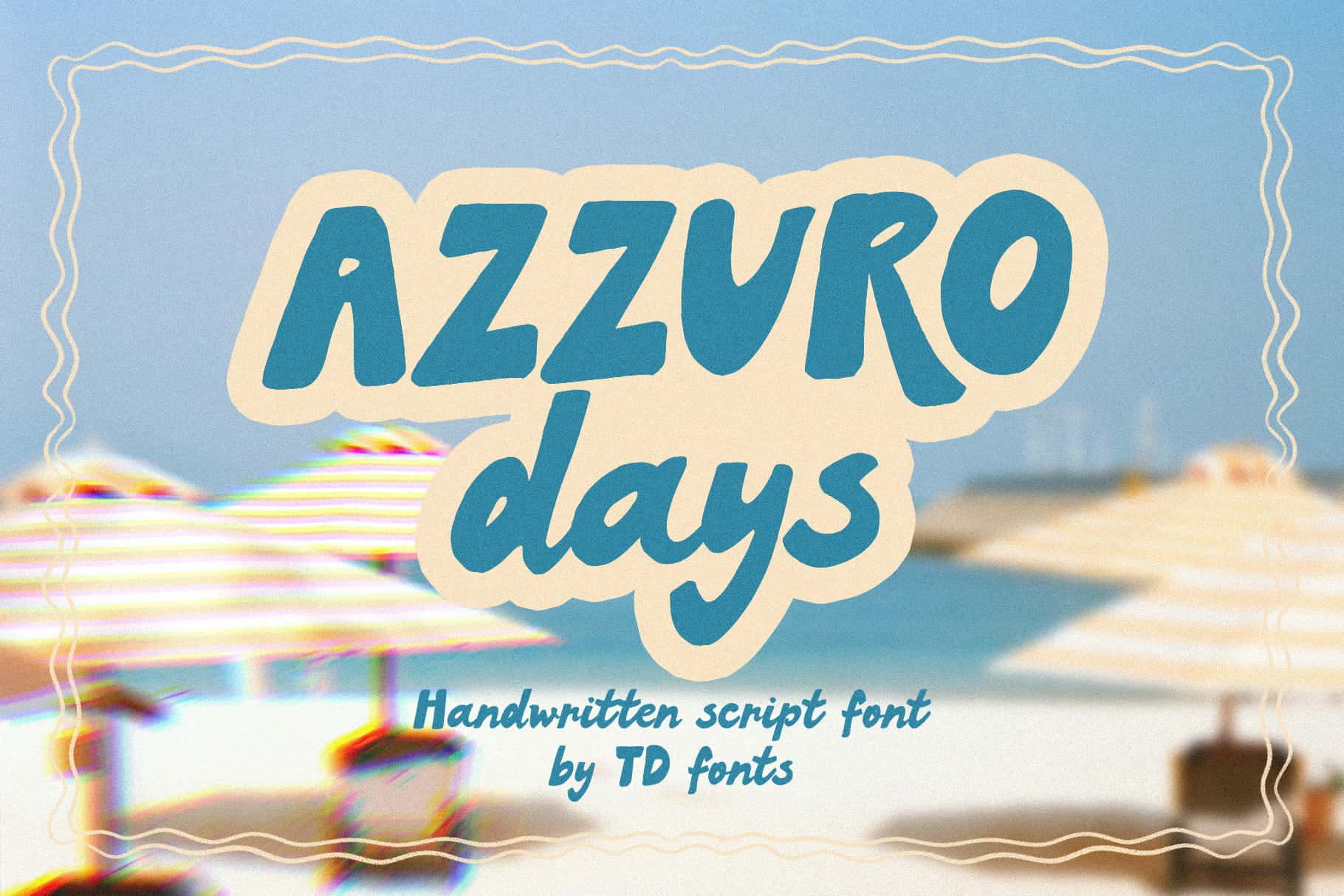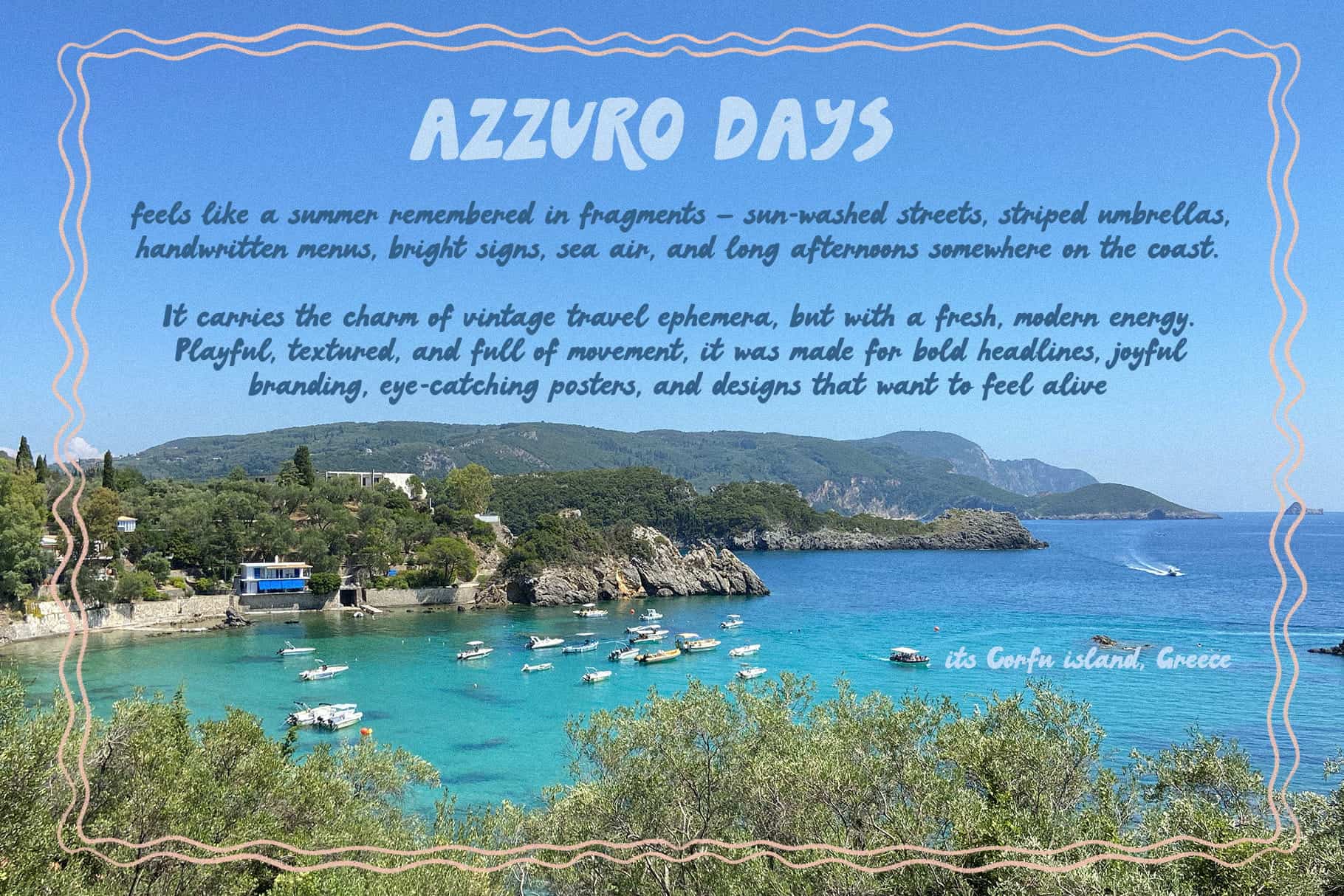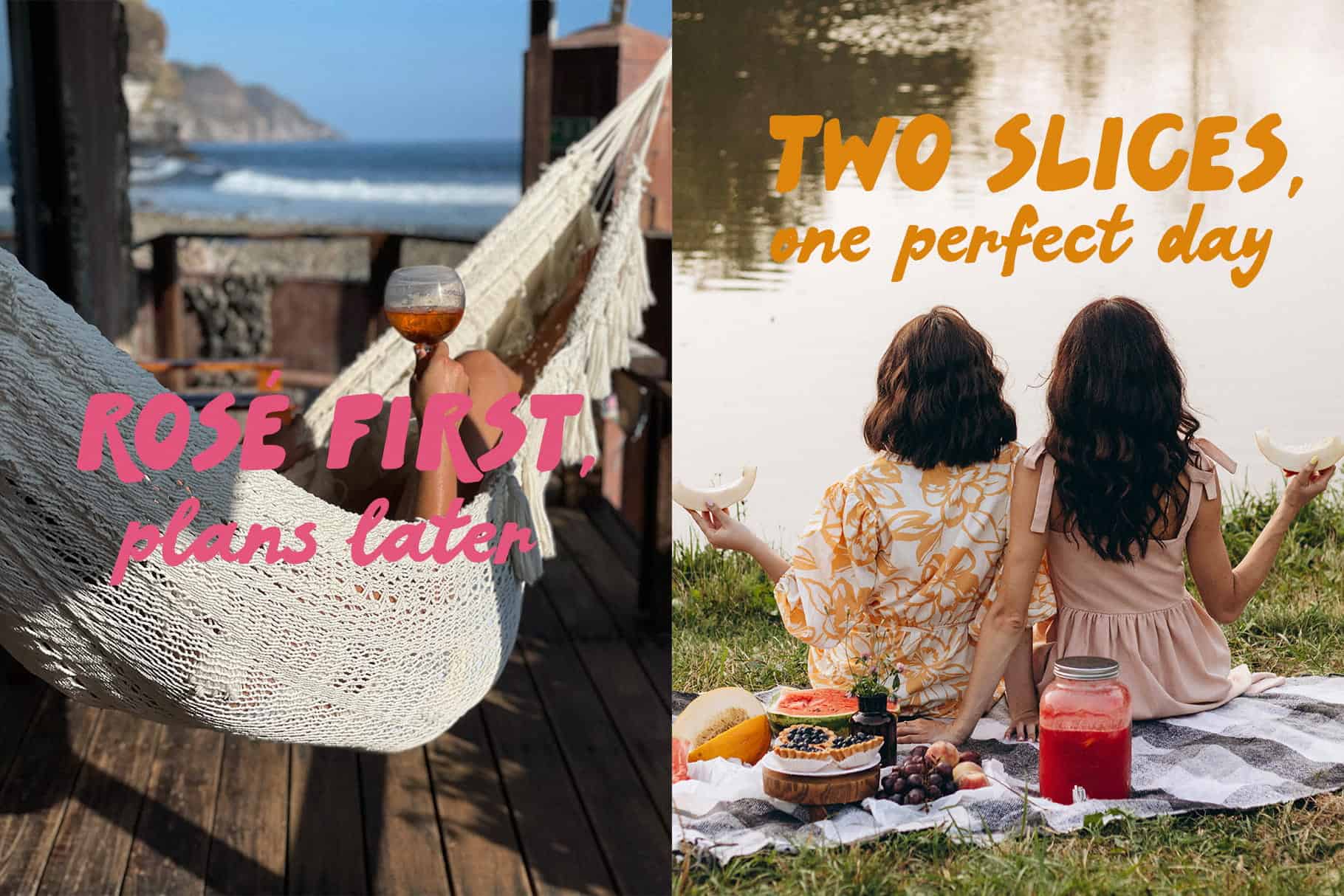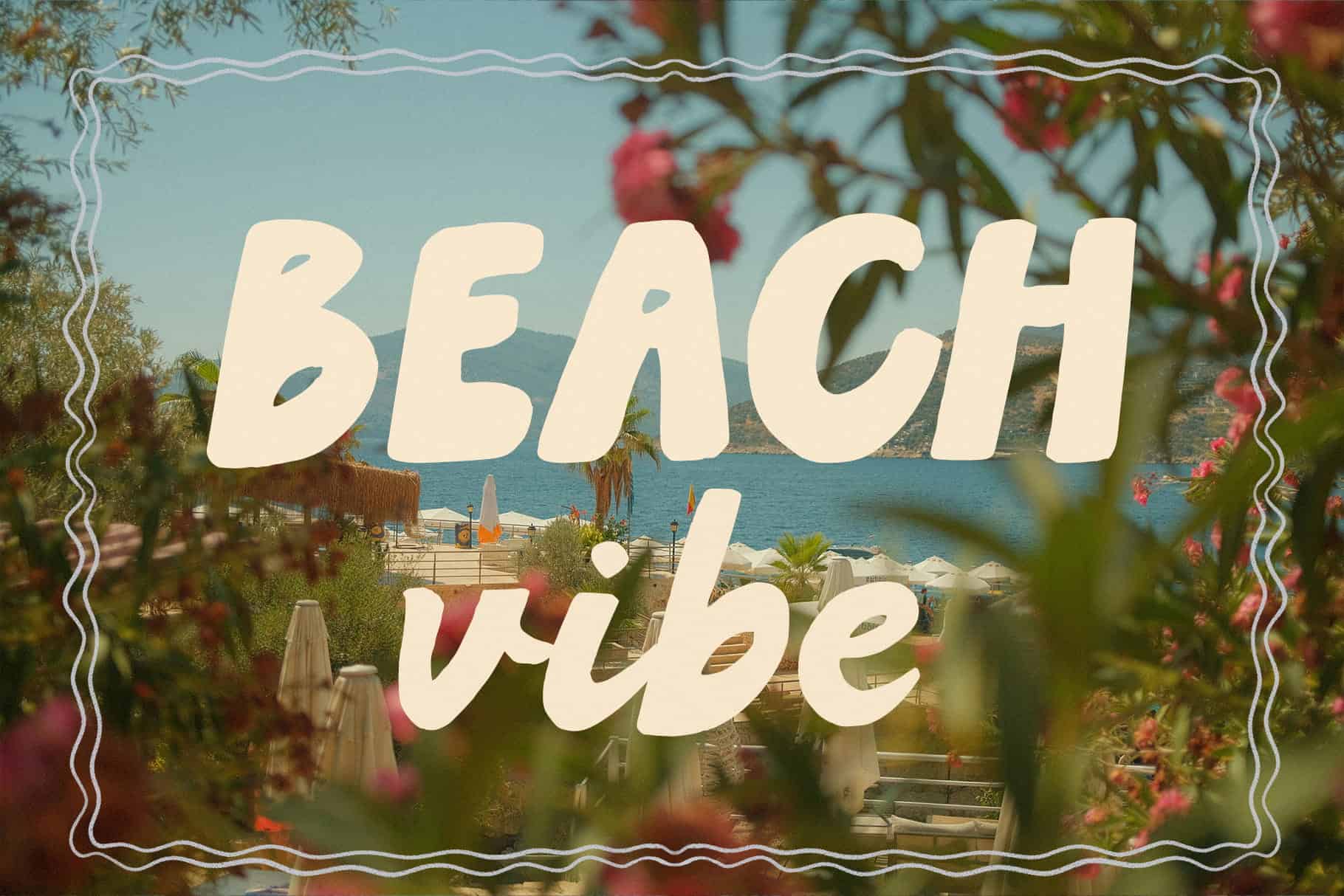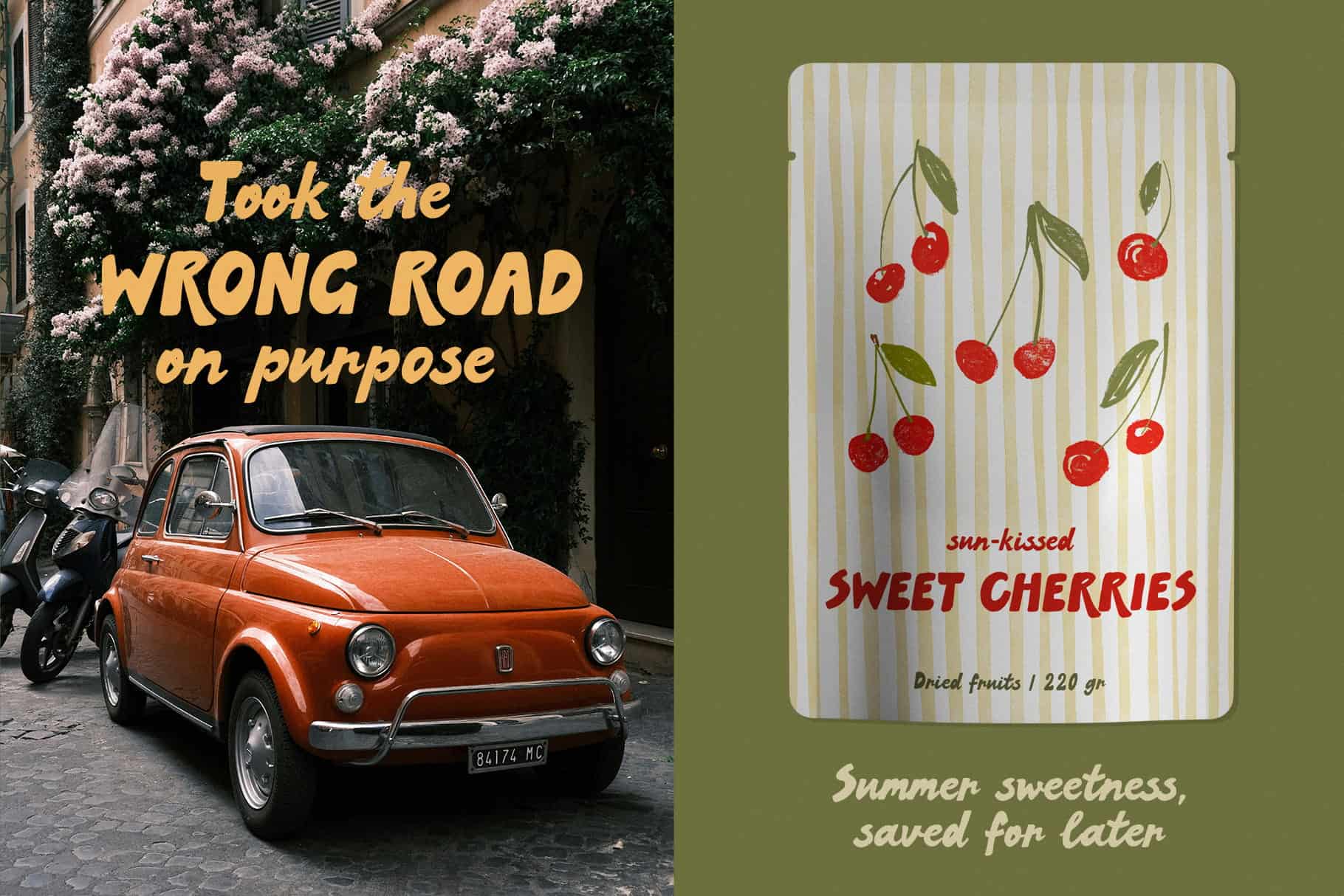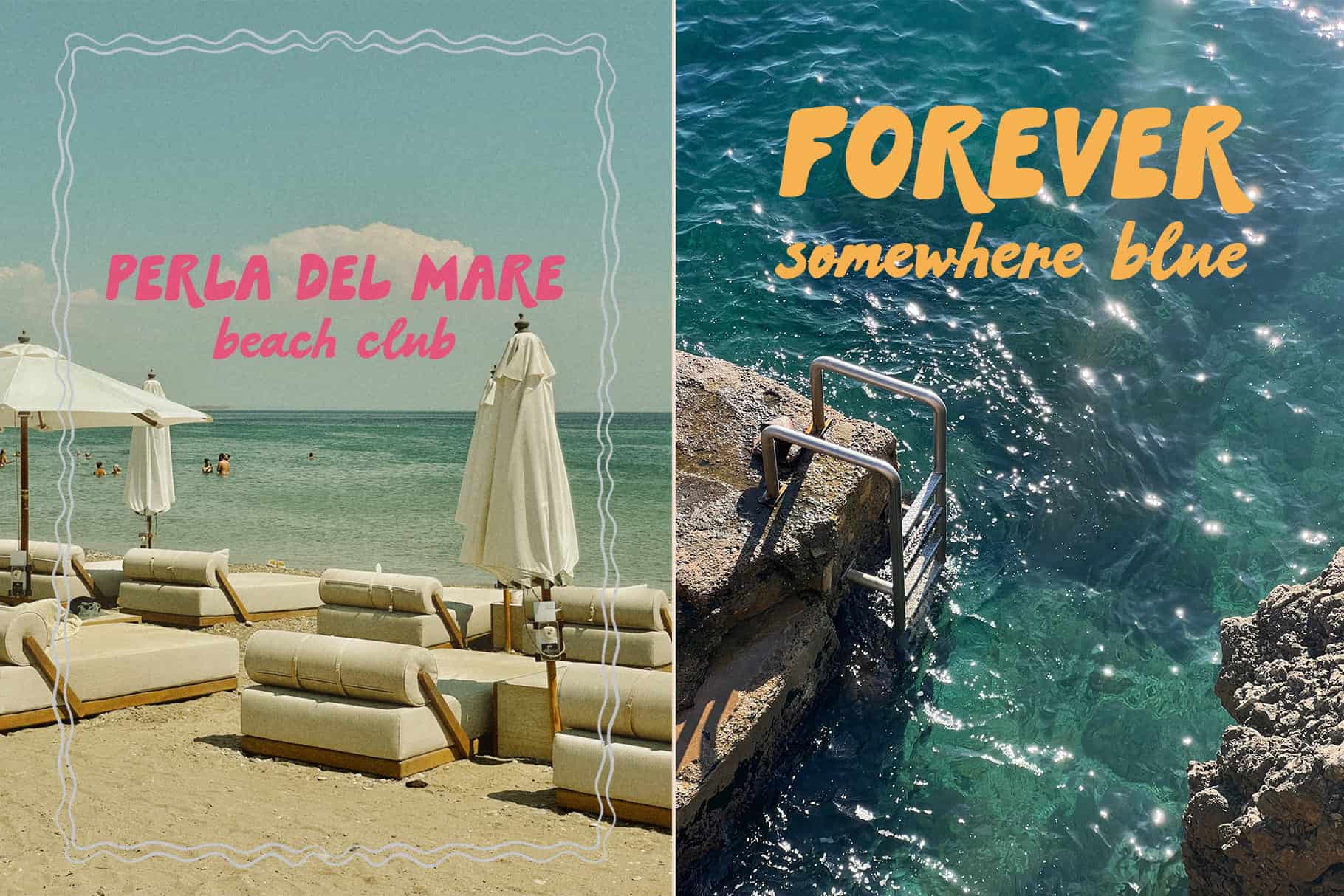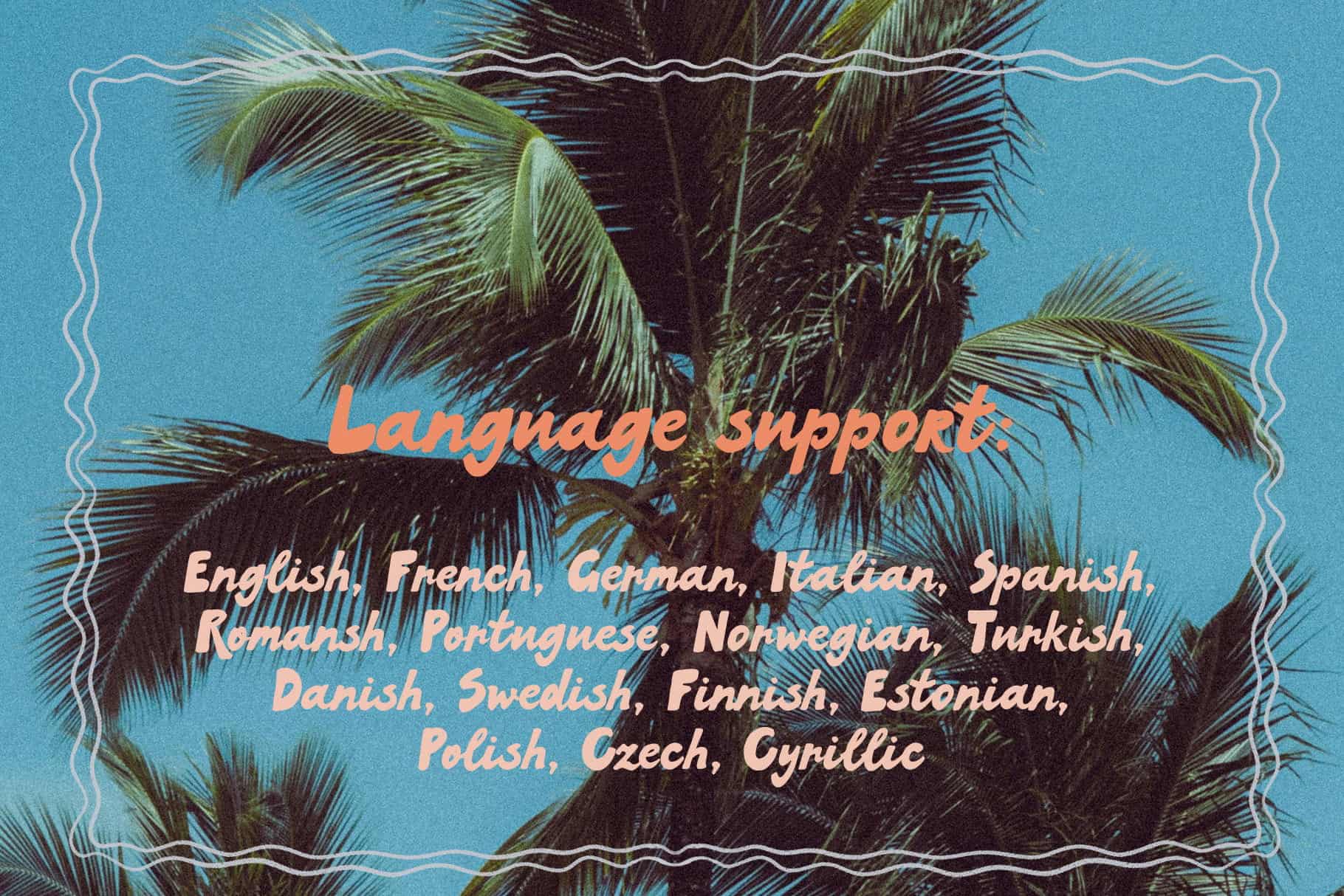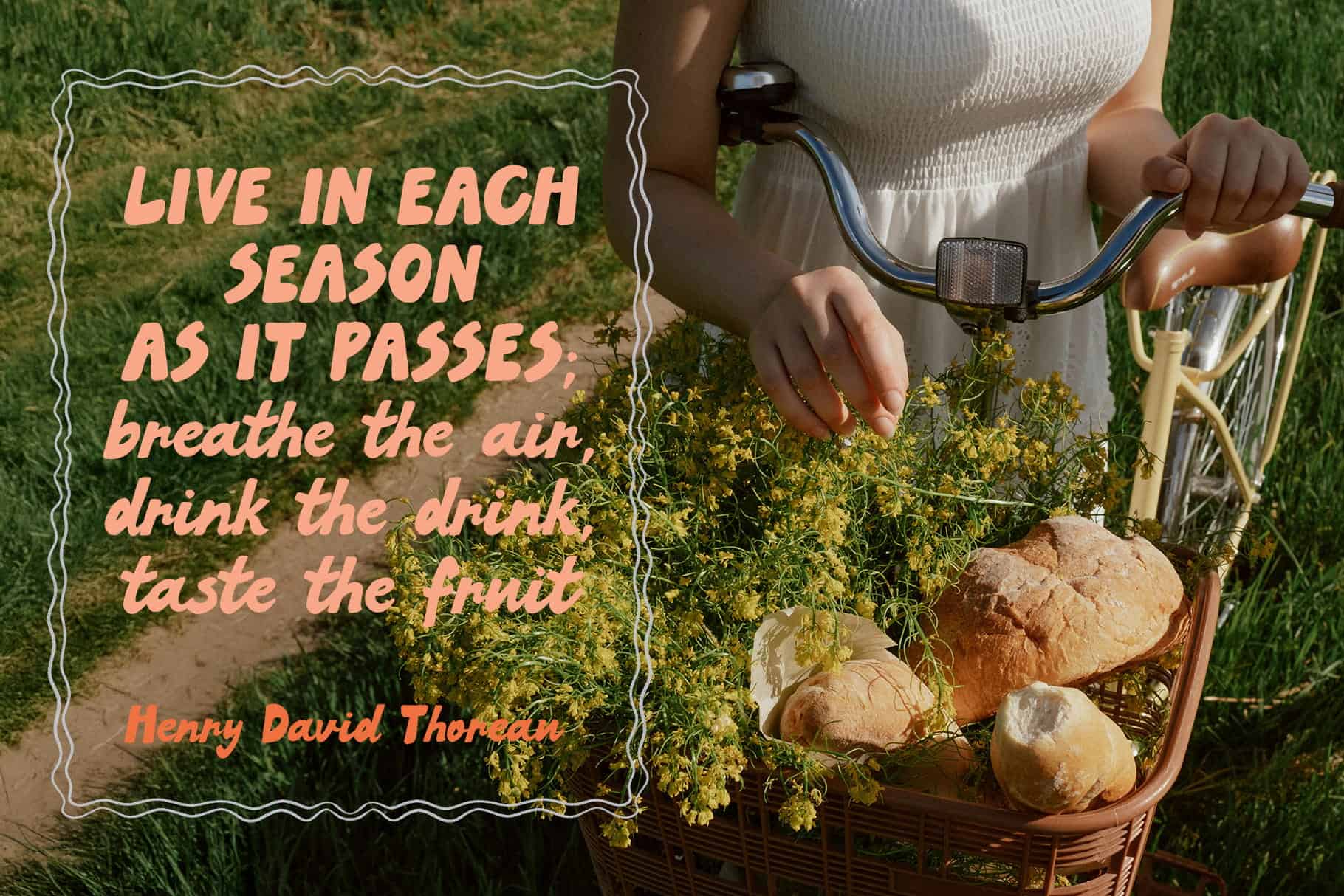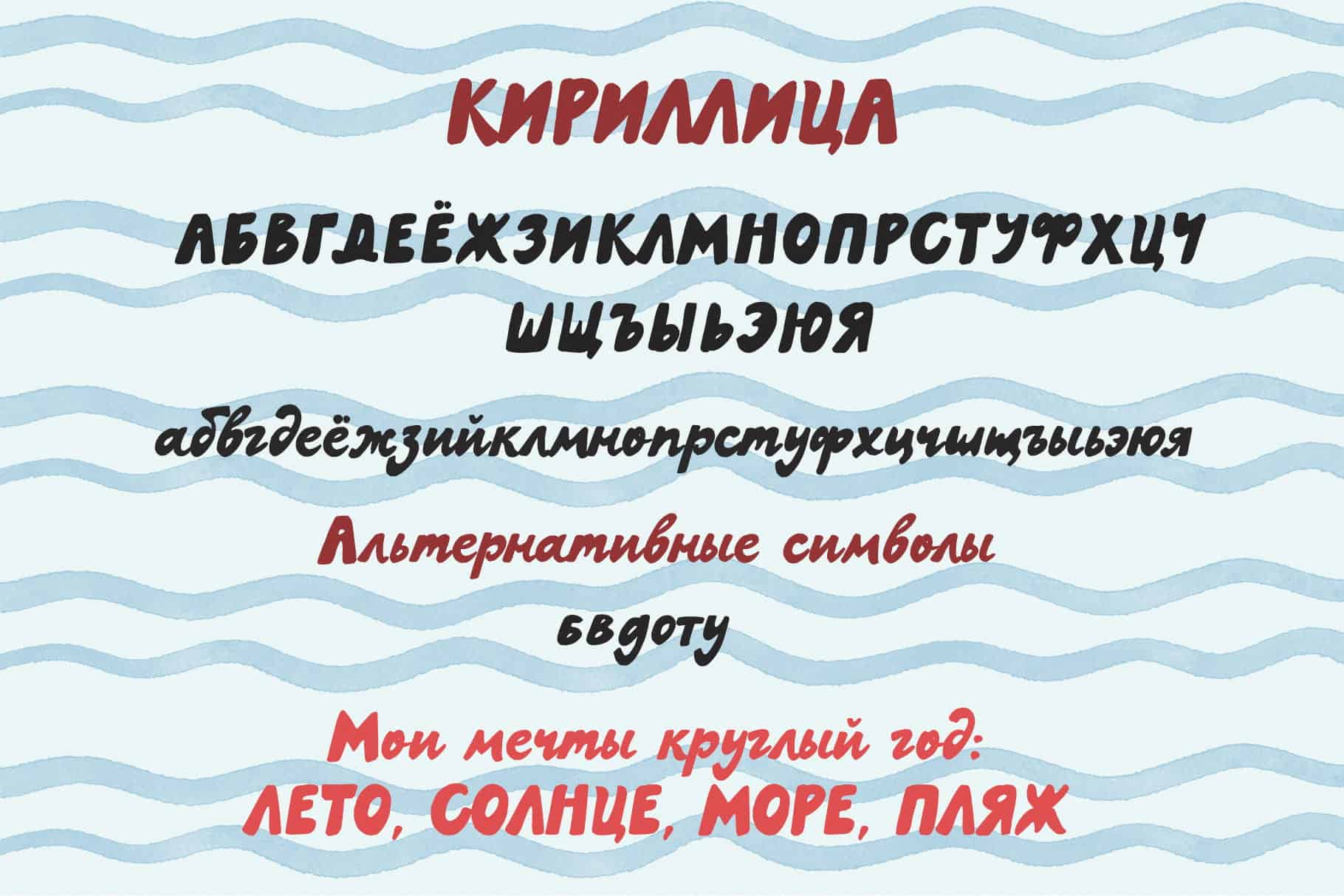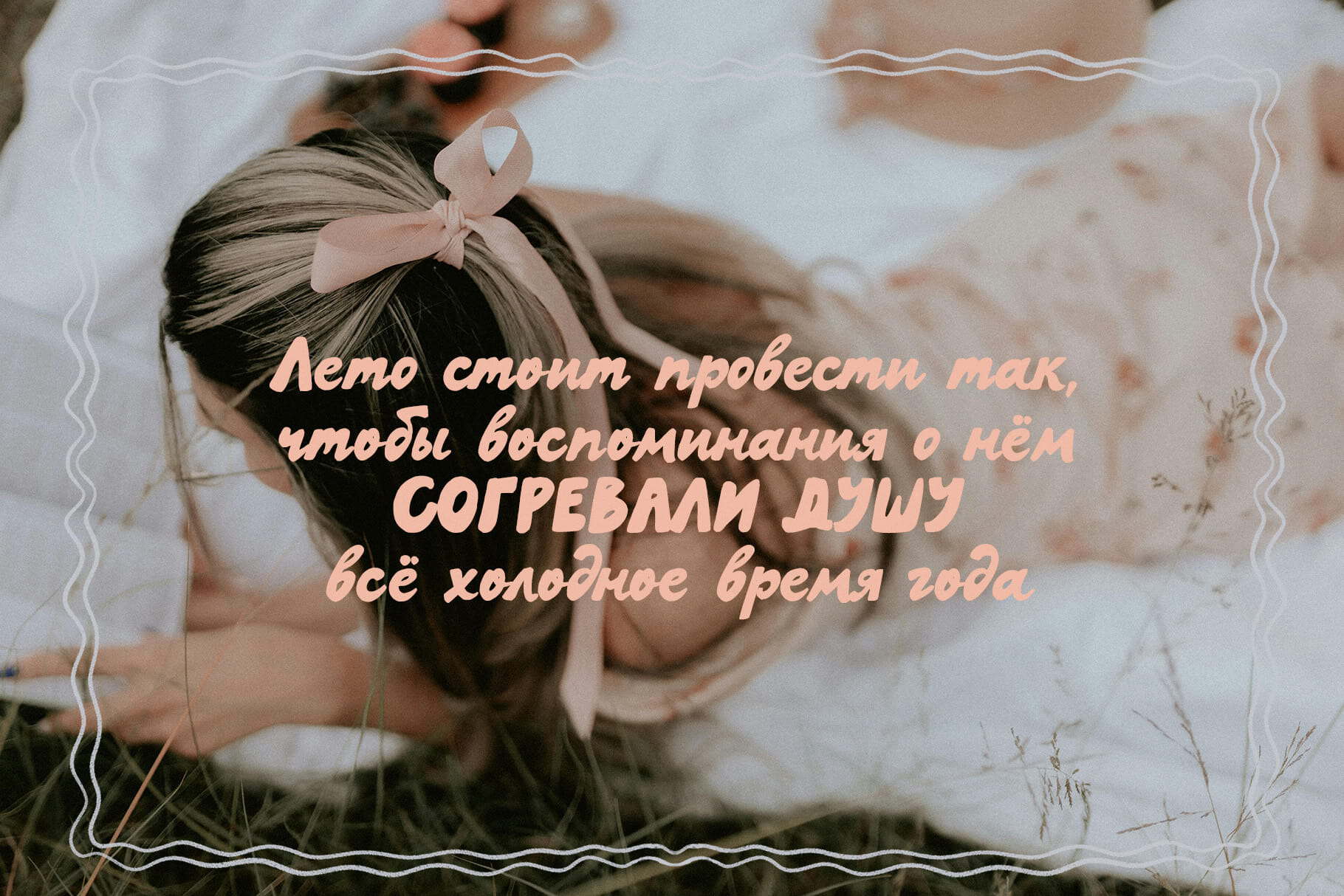
Azzuro Days — Bold Handwritten Script Font
Azzuro Days is a bold handwritten script font with chunky uppercase letters, textured script lowercase, and a playful retro personality. Perfect for logos, branding, packaging, posters, social media, and invitations.
Azzuro Days is a bold handwritten font that combines the confident weight of a chunky sans serif with the warmth, texture, and organic flow of real handwriting.
The uppercase letters are strong, substantial, and playful — designed for headlines, logos, product packaging, and any design that needs to make an immediate visual impact. The script lowercase adds natural rhythm, handmade texture, and a subtle retro feel that brings warmth and personality to every layout.
Written entirely by hand, this font features visible texture, expressive imperfect letterforms, and an authentic handmade quality that makes designs feel alive, emotional, and human. Its style is free and sunny — inspired by travel, summer, and the feeling of time spent somewhere along the coast.
Azzurro Days is ideal for:
- Logo and brand identity design
- Poster and editorial headlines
- Product packaging and labels
- Social media graphics and content
- Wedding and event invitations
- T-shirt and merchandise design
- Café, restaurant, and food branding
- Lifestyle, travel, and beauty branding
Azzuro Days has extensive language support, it includes:
English, French, German, Italian, Spanish, Portuguese, Danish, Norwegian, Swedish, Finnish, Estonian, Romansh, Turkish, Cyrillic.
What is Azzuro Days font?
Azzuro Days is a bold handwritten script font that combines chunky sans serif uppercase letters with textured script lowercase, creating a playful retro handmade style perfect for logos, branding, and design.
What can I use Azzuro Days font for?
Azzurro Days is perfect for logos, branding, posters, packaging, product labels, social media graphics, invitations, editorial design, and merchandise.
Is Azzuro Days a font duo?
Azzuro Days combines two contrasting styles in one typeface — bold sans serif uppercase and textured script lowercase — giving it the look and versatility of a font duo.